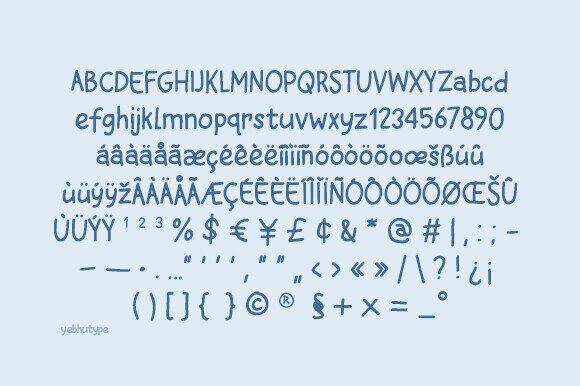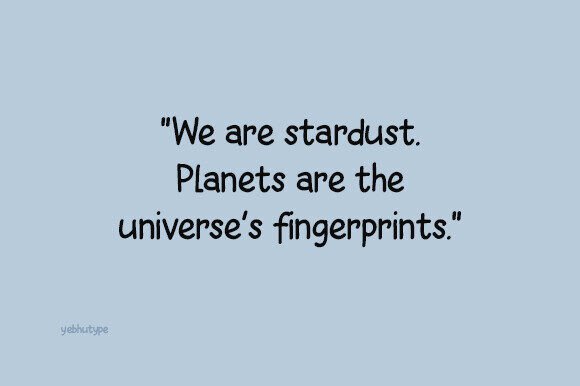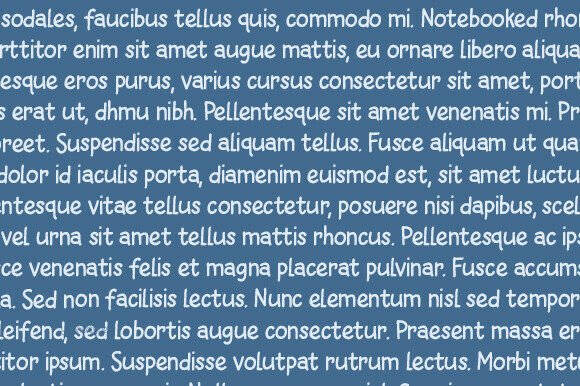
Introduction to Playnets Font
Remember the feeling of creating a magical world with crayons and paint as a child? The freedom to let your imagination run wild and bring any idea to life? That sense of wonder and creativity is exactly what the Playnets Font is designed to evoke. As a designer, you know how crucial it is to have the right tools to bring your vision to life. That’s why we’re excited to introduce you to this lively and whimsical typeface.
With its cheerful curves, bouncy rhythm, and friendly design, the Playnets Font is the perfect design resource for any creative project that aims to captivate young hearts and minds. Whether you’re working on a children’s book, a website for a kids’ educational platform, or a marketing campaign for a family-friendly brand, this high-quality font is sure to add a touch of magic to your design.
Key Features of Playnets Font
- High-quality design resource ideal for creative projects, including graphics, logos, and digital art.
- Features a unique, modern design with a transparent background, making it perfect for overlaying on images or videos.
- Designed to be highly legible and versatile, making it suitable for a wide range of creative projects and design contexts.
- Perfect for designers seeking a high-quality, creative design resource that is both easy to use and visually striking.
Honest Review: Playnets Font
I recently had the chance to work with the Playnets Font and I must say it’s a great addition to any design project. This high-quality font is perfect for those looking to create a unique and eye-catching visual identity.
What works well with the Playnets Font is its versatility. It can be used for a variety of creative projects, from branding and logos to web design and print materials. The font’s clean lines and modern aesthetic make it an excellent design resource for anyone looking to create a sleek and professional look.
- ✨ Highly customizable: The Playnets Font can be easily customized to fit your design needs, with options for bold, italic, and bold italic styles.
- ✨ Transparent background: This font features a transparent background, making it easy to overlay on top of images or other design elements.
One limitation of the Playnets Font is its limited character set. While it’s a great choice for headings and titles, it may not be the best option for body text. Additionally, the font may not be suitable for use in small font sizes.
Designing with Playnets Font
The Playnets Font is a versatile, high-quality design resource ideal for a wide range of creative projects. Its transparent background allows for seamless integration with various backgrounds, giving you complete control over your design.
Getting the Most Out of Playnets Font
To maximize the potential of the Playnets Font, use it in conjunction with other design elements to create a cohesive and visually appealing design. Experiment with different font sizes, colors, and arrangements to achieve the desired effect.
The Playnets Font is suitable for a wide range of applications, including branding, logos, business cards, brochures, and social media graphics. Its versatility and high-quality design make it an excellent choice for any creative project.